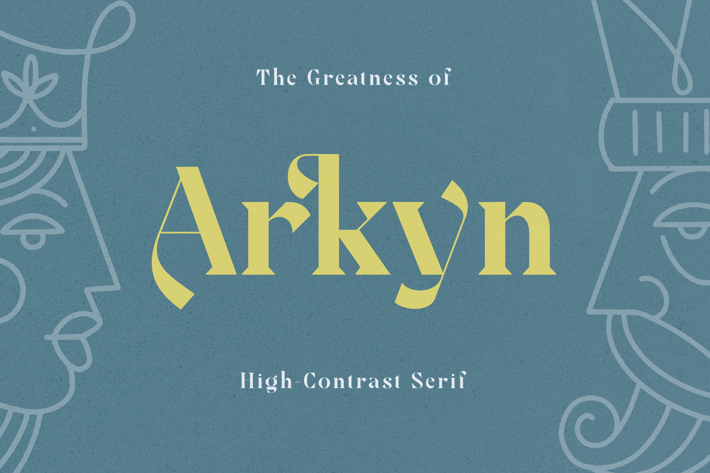
Modern Classic Serif Font
Arkyn is a modern classic display typeface inspired by the mythological theme. Arkyn has unique serifs, it comes with some alternates and ligatures. Arkyn would be perfect for branding, game title vintage posters, beer labels, and more.
Alternates
Ligatures